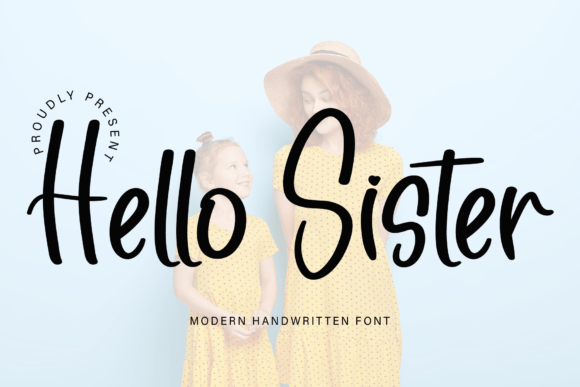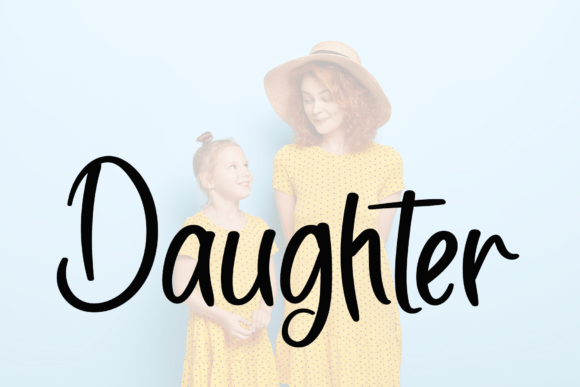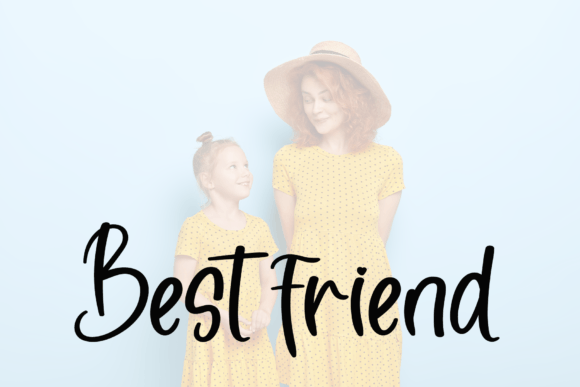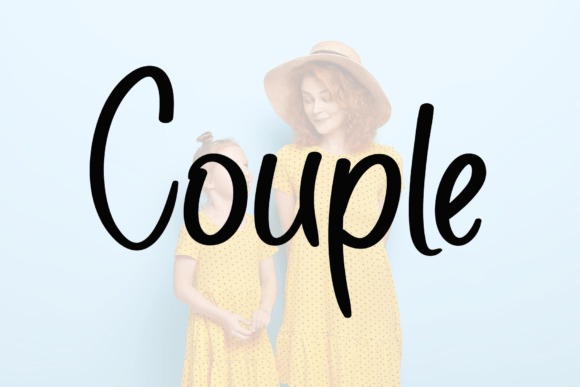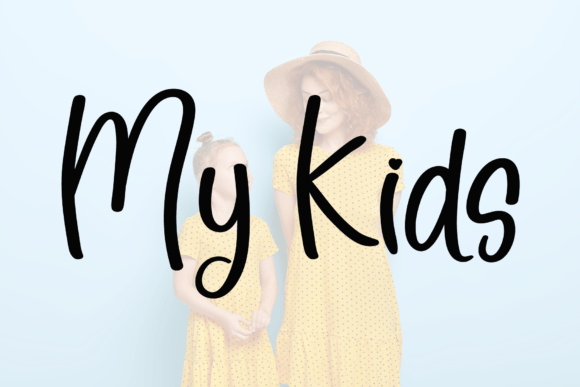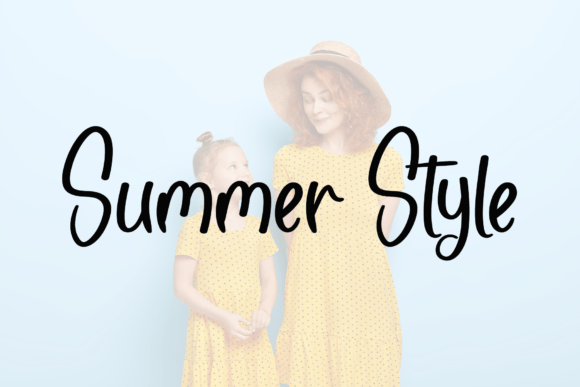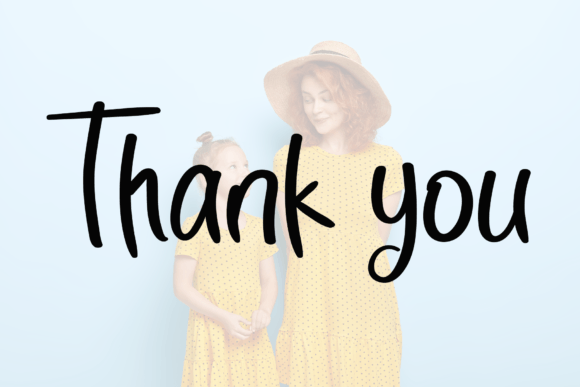
Discover the Warmth of Hello Sister Font
Have you ever sat at your desk, surrounded by scribbled notes and scattered sketches, trying to find the perfect font to bring your design to life? It’s a moment we’ve all experienced – the search for that elusive font that captures the essence of our creative vision. For designers, finding the right font can be a game-changer, and today, we’re excited to introduce you to a hidden gem that’s sure to become a staple in your design arsenal: Hello Sister Font.
Hello Sister Font is a simple yet versatile handwritten font that effortlessly adds a natural, personal touch to any project. Whether you’re crafting greeting cards, designing headlines, or creating digital content, this font is guaranteed to bring a warm, approachable feel to your work. As a designer, you’ll appreciate the flexibility and charm that Hello Sister Font offers, making it an invaluable addition to your design toolkit.
Hello Sister Font Key Features
- Font Family: Hello Sister Font is a unique, hand-drawn script font designed for creative projects.
- Character Count: The font includes a wide range of characters, including uppercase and lowercase letters, numbers, and punctuation marks.
- Size: The font is available in 1 style with 6 weights, ranging from Light to Bold, to accommodate various design needs.
- Unique Characteristics: The font features a whimsical, handwritten feel with subtle imperfections, adding a touch of personality to any design.
Designer Review: Hello Sister Font
Overall, I found the Hello Sister Font to be a charming and whimsical addition to any design project. ✨ Its playful, handwritten feel immediately grabs the user’s attention and conveys a sense of approachability and friendliness.
Some of the standout features of the font include:
- ✨ Unique, hand-drawn aesthetic that adds a touch of personality to designs
- ✨ Highly legible, even at smaller font sizes
- ✨ Supports a wide range of languages, making it a great choice for global projects
However, I did encounter some limitations with the font that might impact its usability:
- ⚠️ Limited font size range, which can lead to issues with readability at larger sizes
- ⚠️ Some letterforms can be a bit too loose or irregular, potentially affecting overall text clarity
Despite these limitations, I think the Hello Sister Font is a great choice for projects where a friendly, approachable vibe is desired. With some careful consideration of font size and styling, I think it can be a valuable addition to any designer’s toolkit.
Tips for Getting the Most Out of Hello Sister Font
For the best results, use the Hello Sister font in bold or italic styles to add emphasis and create visual interest.
Pair the Hello Sister font with other fonts to create a unique and eye-catching design.
The Hello Sister font is perfect for:
Creative projects, such as invitations, posters, and social media graphics.
Branding and marketing materials, such as logos and business cards.
Alex Brush Font is a beautiful, hand-drawn script font that is perfect for creating a romantic and elegant atmosphere. It is ideal for use in wedding invitations, announcements, and branding materials.
Compared to Hello Sister Font, Alex Brush Font has a more refined and sophisticated feel, while Hello Sister Font has a more playful and whimsical vibe. Alex Brush Font is also more suitable for formal designs, while Hello Sister Font is better suited for casual designs.
What is the recommended font size and line height for Hello Sister Font?
The recommended font size for Hello Sister Font is between 12pt and 24pt. For optimal readability, use a line height that is 1.2 to 1.5 times the font size. This will ensure that the text is clear and easy to read, especially in digital formats.